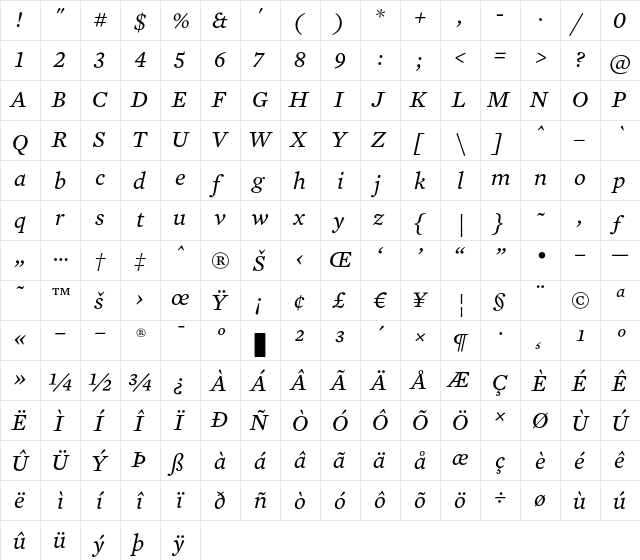
Mercury Text G2 Italic
Design Context for Mercury Text G2 Typeface
Mercury Text G2 takes a measured approach to typography — its balanced proportions and neutral character make it a reliable workhorse for both digital and print work. Its italic angle brings a sense of urgency and motion to the letterforms.
Pro Tip: Use Mercury Text G2 for emphasis, pull quotes, and subheadings where its slanted energy can add rhythm to the layout.